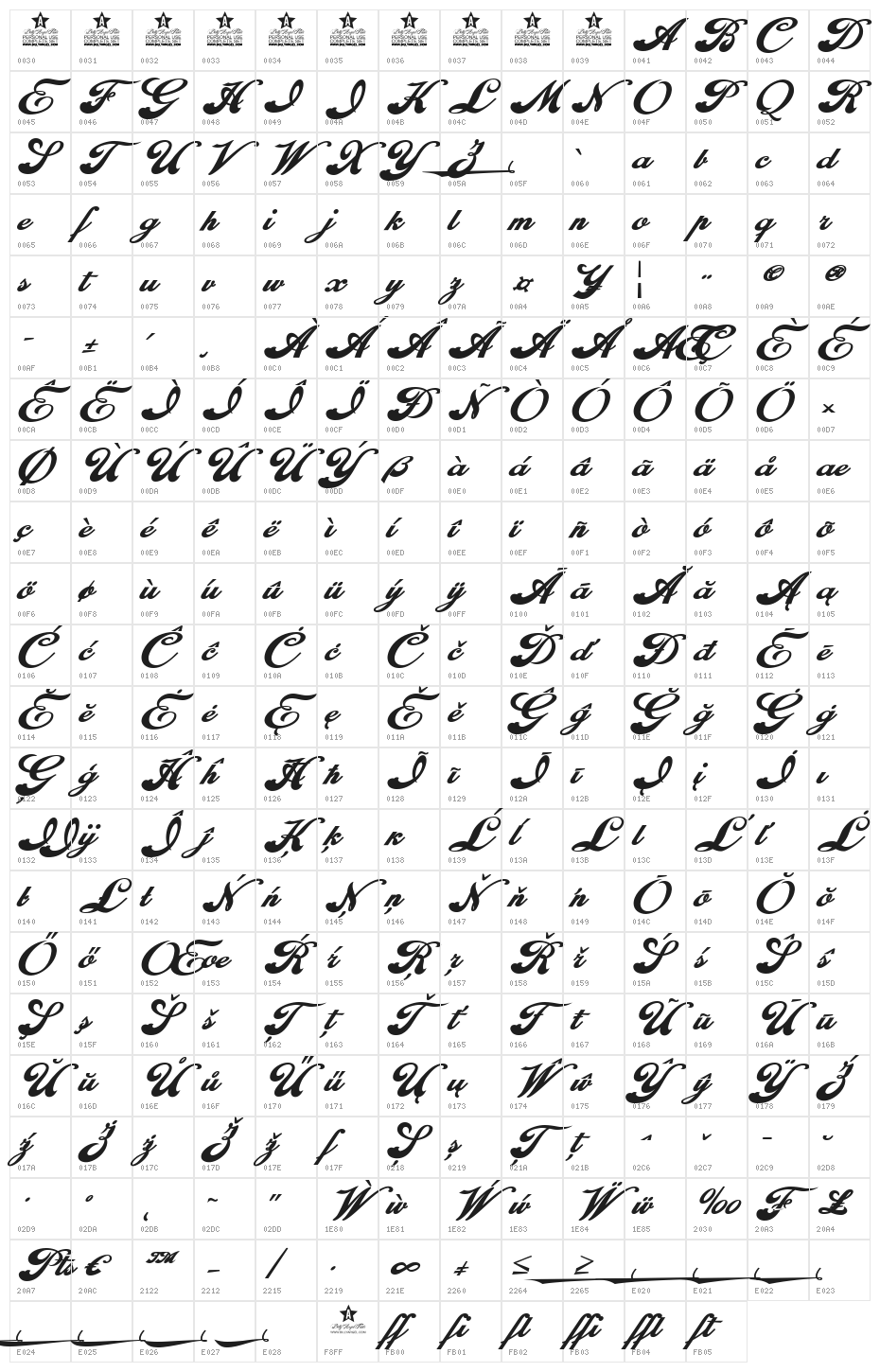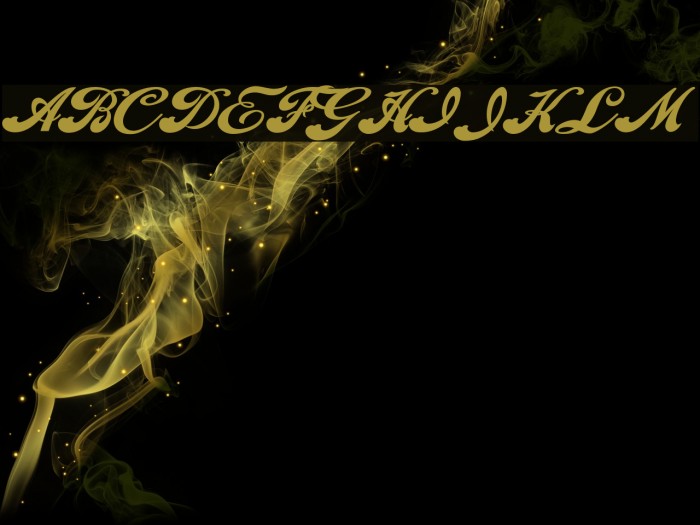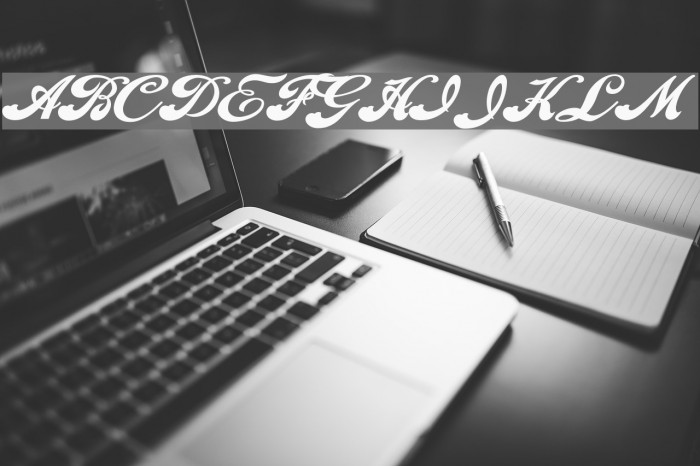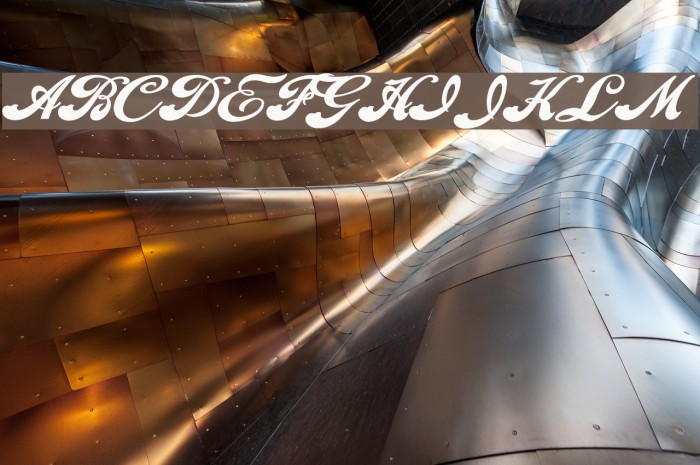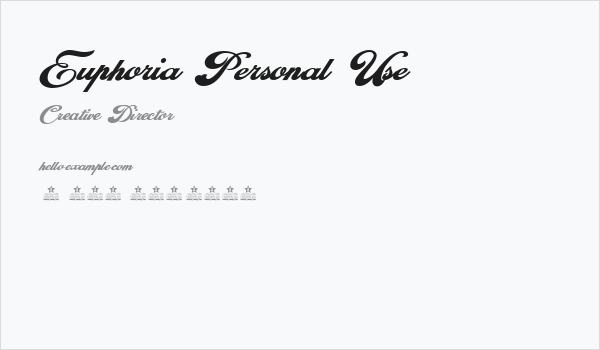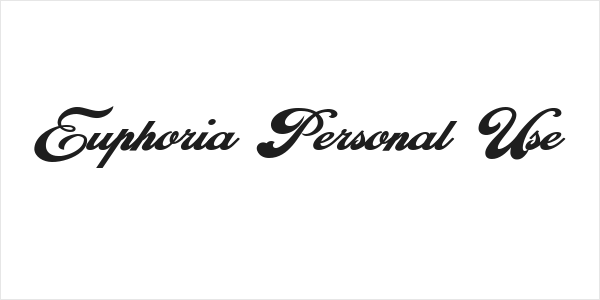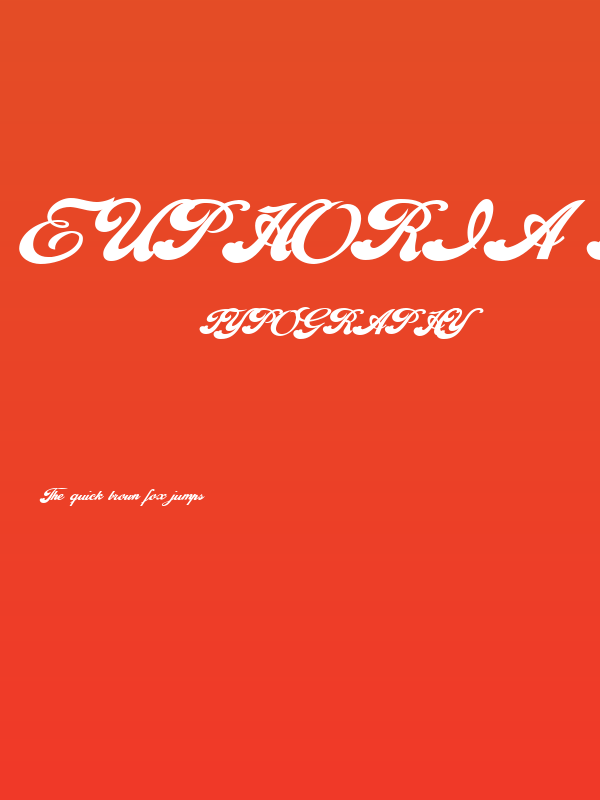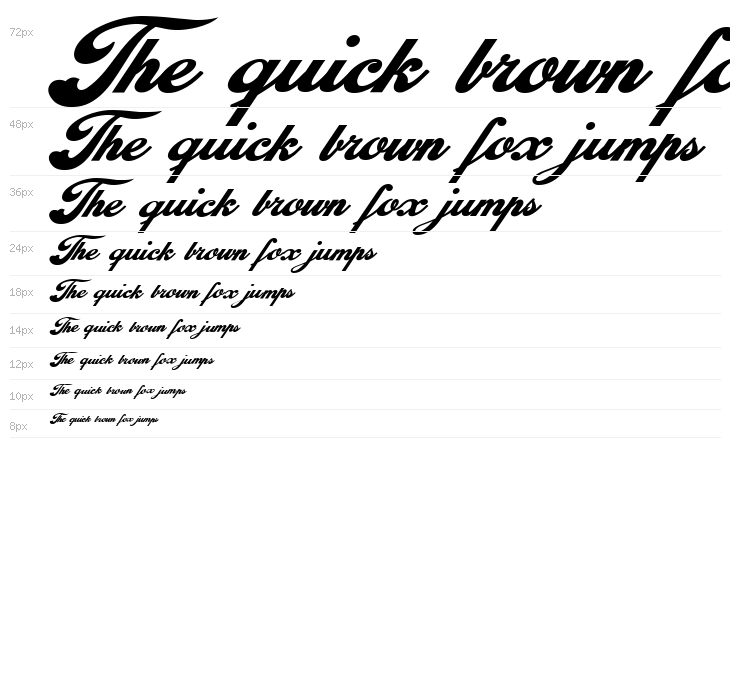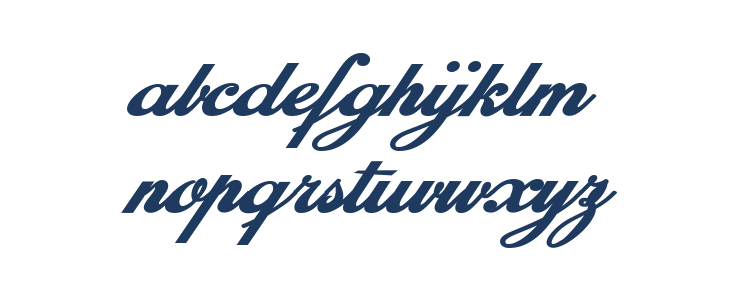
Euphoria Personal Use Font
Euphoria Personal Use Description
This font features an elegant and flowing script style with a strong emphasis on cursive elements. The characters are interconnected, creating a seamless and fluid appearance. The uppercase letters are ornate, with intricate loops and swirls, while the lowercase letters maintain a consistent style, enhancing readability. The bold strokes and high contrast between thick and thin lines give the font a dramatic and sophisticated look. It is well-suited for decorative purposes, adding a touch of elegance and flair to any design.